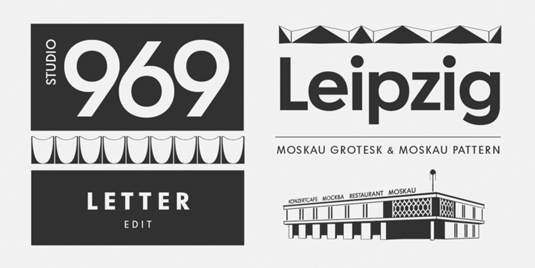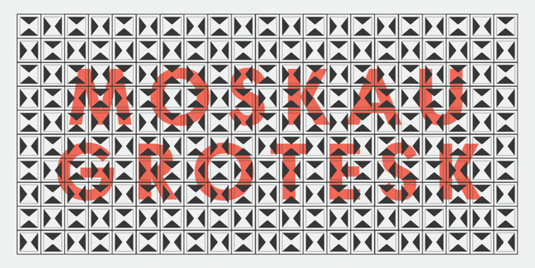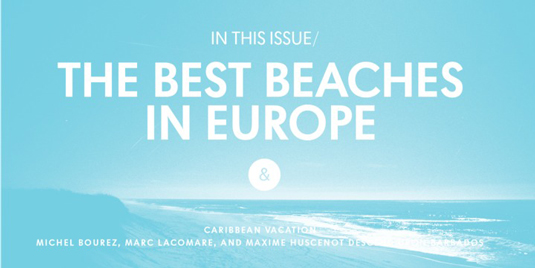
Font of the day: Moskau Grotesk
Moskau Grotesk by Björn Gogalla
The design of today's typeface of choice, Moskau Grotesk, is based on the signage created for the Café Moskau – one of the prestige buildings of the former DDR (German Democratic Republic) – in Berlin by the graphic artist Klaus Wittkugel at the beginning of the 1960s. A tribute to this orginal design, Moskau Grotesk was created in 2013 by designer Björn Gogalla.